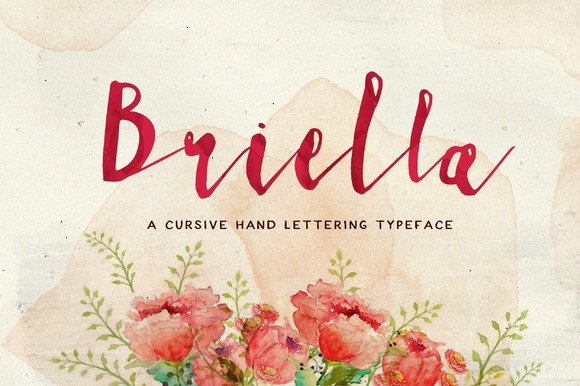
The Quest for the Perfect Font: Discovering Briella
I still remember the time I was working on a wedding invitation project, and I just couldn’t find the right font to capture the elegance and romance of the occasion. I had tried countless fonts, but none of them seemed to fit the bill. That was until I stumbled upon Briella, a beautiful feminine and simple cursive script font that has since become a staple in my design toolkit.
What is Briella?
Briella is a hand-crafted font that exudes elegance and sophistication. Its flowing lines and delicate curves make it perfect for a variety of creative projects, including wedding invites, birthday cards, greetings, posters, return addresses, signatures, branding work, logos, and much more. One of the standout features of Briella is its accented glyphs, which add an extra layer of versatility to the font.
An Honest Review of Briella
What I Love About Briella
• ✨ Feminine and elegant: Briella has a distinctly feminine charm that makes it perfect for projects that require a touch of sophistication.
• ✅ Easy to read: Despite its cursive nature, Briella is surprisingly easy to read, even at smaller font sizes.
• ✅ Accented glyphs: The inclusion of accented glyphs makes Briella a great choice for projects that require a bit of international flair.
• ✅ OpenType features: Briella supports OpenType features, which allow for advanced typographic control and customization.
While Briella is an excellent font, it’s not without its quirks. For example, ⚠️ some users may find the font a bit too delicate for certain projects, such as bold or attention-grabbing headlines. Additionally, 🤔 the font may not be the best choice for very long blocks of text, as it can become a bit tiresome to read.
The Story Behind Briella
Briella was designed by a team of typographers who wanted to create a font that would capture the elegance and sophistication of traditional calligraphy. Inspired by the flowing lines and delicate curves of handwritten scripts, Briella was crafted to be both beautiful and functional. Whether you’re a designer, crafter, or creative hobbyist, Briella is a font that is sure to inspire your creativity.
Q: What is the best way to use Briella for wedding invitations?
A: Briella is a popular choice for wedding invitations due to its elegant and sophisticated feel. Use it as a primary font for the invitation text, and pair it with a simpler font for the details.
Q: Does Briella support OpenType features?
A: Yes, Briella supports OpenType features, which allow for advanced typographic control and customization.